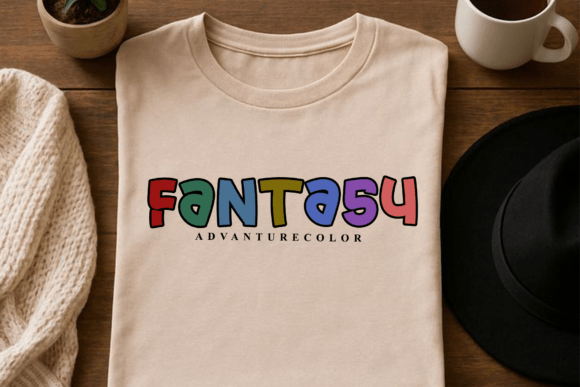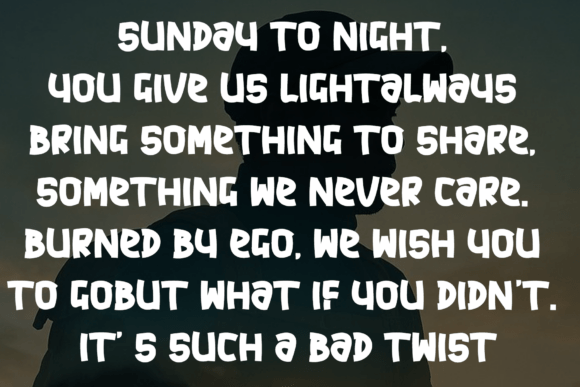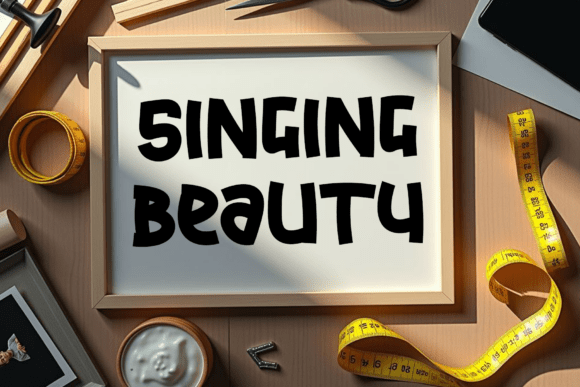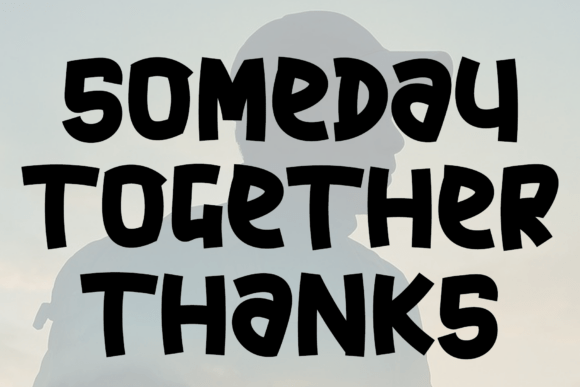
The Ultimate Guide to Final Speak Font: Elevate Your Designs with Timeless Elegance
I’ll never forget the moment I stumbled upon the perfect font for a client’s branding project. It was like a breath of fresh air – the design instantly came alive, and I knew I’d found something special. That’s exactly what happened when I discovered the Final Speak font. In this article, I’ll share my experience with this lovely handwritten font, its features, and how to make the most of it in your designs.
An Honest Review of Final Speak Font
So, what makes Final Speak font so special? Let’s dive into the good stuff and a few quirks I’ve noticed.
What I Love About Final Speak Font
- ✨ Unique and beautiful touch: Every letter has its own character, making your designs truly stand out.
- ✅ Timeless elegance: Final Speak’s handwritten style exudes sophistication and refinement.
- ✅ Versatility: Perfect for logos, branding, quotes, and any project that needs a touch of personality.
While Final Speak font is amazing, there are a few things to keep in mind:
- ⚠️ Limited availability of stylistic alternates: Some design platforms might not support OpenType features, which could limit your creative options.
- 🤔 Glyph coverage: Although extensive, the glyph coverage might not be exhaustive, so it’s essential to check the font’s capabilities before using it for specific projects.
The Story Behind Final Speak Font
Imagine a designer who spent years perfecting the art of handwriting, pouring their heart and soul into creating a font that would make designs come alive. That’s the story behind Final Speak font. Although the actual creator’s story might be different, it’s clear that a lot of love and care went into crafting this beautiful font.
| Font Name | Final Speak Font |
| Author | Sansana |
| What makes Final Speak font so special? | Final Speak font has a unique and beautiful touch, making it perfect for designs that need a touch of elegance and personality. |
| Is Final Speak font suitable for body text? | While Final Speak font is beautiful, it’s best suited for headlines, titles, and short paragraphs. For body text, a more traditional font might be more readable. |